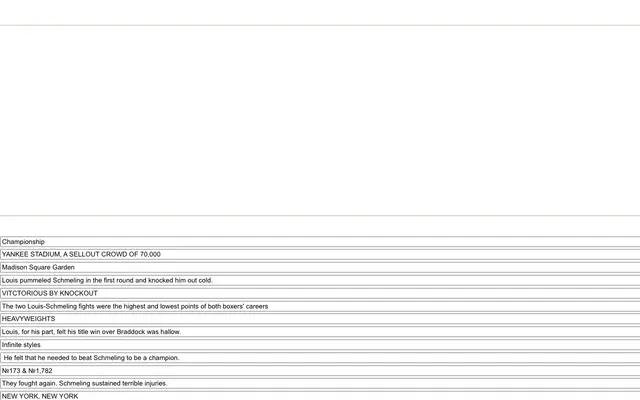
Cantrell Grotesk
A variable grotesque sans from Cantrell Type spanning a wide weight range with italic support and coverage for 220+ languages.
Cantrell Grotesk is a variable-axis grotesque with continuous control over weight, width and italic axes, along with five stylistic sets for additional character alternates. The family covers 484 glyphs and supports over 220 languages across extended Latin scripts. Available under desktop, web and app licensing tiers.
The name and specimen positioning confirm a grotesque sans classification, with variable weight and width axes and italic variants typical of contemporary grotesque families.